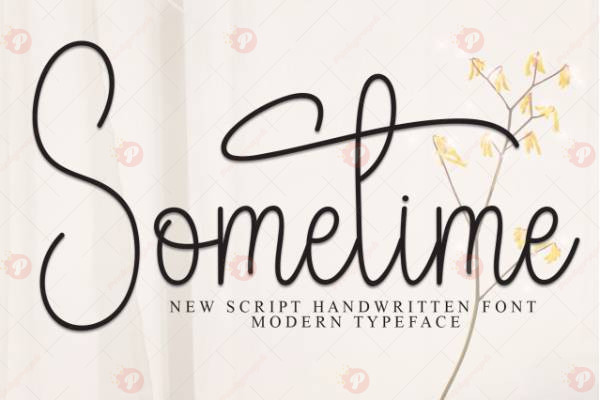
The Sometime Script Handwritten Font Free is a modern and stylish handwritten script font that blends elegant calligraphy with natural handwriting flow. Its smooth curves, graceful lines, and chic strokes make it ideal for wedding invitations, feminine branding, greeting cards, posters, social media graphics, logos, and packaging.
Whether you’re working on romantic designs, lifestyle branding, or personal creative projects, the Sometime Script Handwritten Font Free adds a touch of sophistication and charm to any work.
Typeface: Script / Handwritten
Style: Elegant / Modern / Calligraphy / Stylish
Perfect for: Invitations, Logos, Greeting Cards, Packaging, Posters, Branding, Social Media
Add beauty and elegance to your designs with the Sometime Script Handwritten Font Free – timeless handwriting for modern creatives. ✨